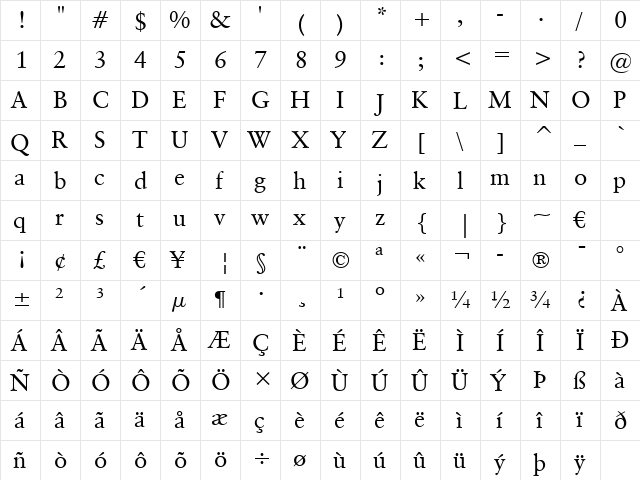
ClassGarmnd BT Roman Font Preview
ClassGarmnd BT Roman
ClassGarmnd BT Roman Font Details
Design Context for ClassGarmnd BT Typeface
ClassGarmnd BT offers clean, dependable letterforms without strong stylistic allegiance, making it a practical choice for designers who need flexibility.